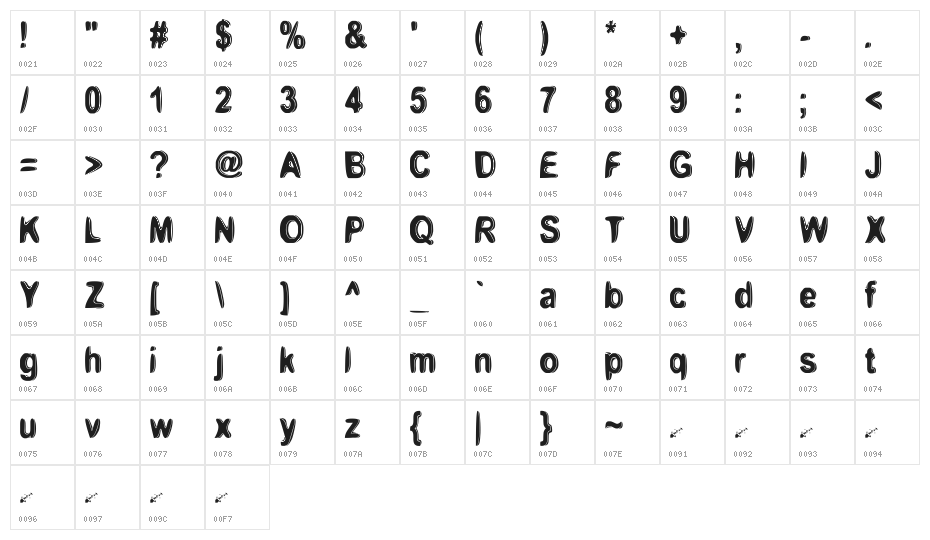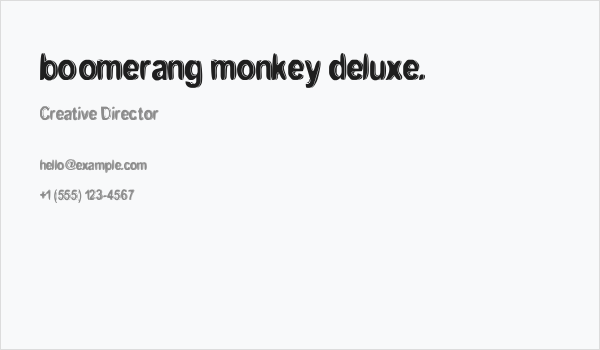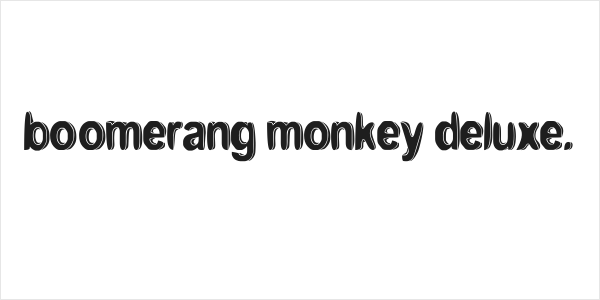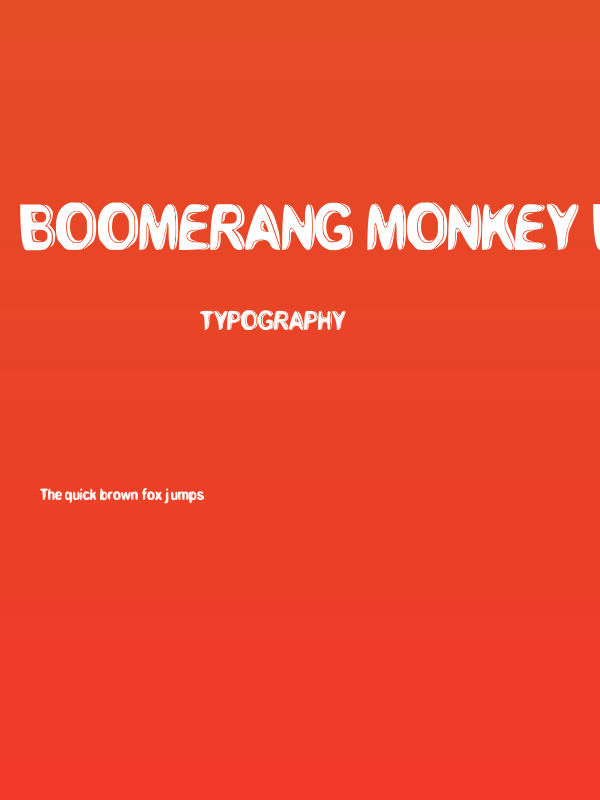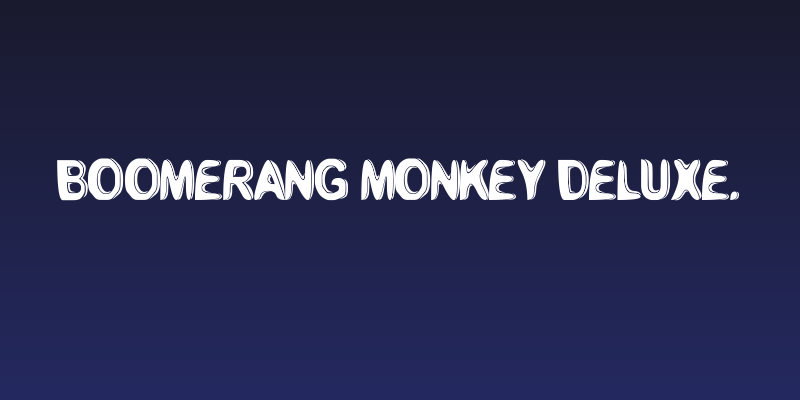
boomerang monkey deluxe. Font
This playful and bold font features a unique, bubbly design with thick, rounded edges and a slightly irregular shape, giving it a whimsical and fun appearance. The characters are filled with a solid color and outlined with a contrasting shadow, adding depth and a three-dimensional effect. The uppercase and lowercase letters maintain a consistent style, while the numbers and special characters complement the overall aesthetic. This font's distinctive look makes it ideal for projects that require a lively and engaging visual impact.
| Overall Style | Playful, Fun, Whimsical |
| Proposed Projects | Perfect for children's books, comic strips, playful branding, party invitations, and any project needing a fun and lively touch. |